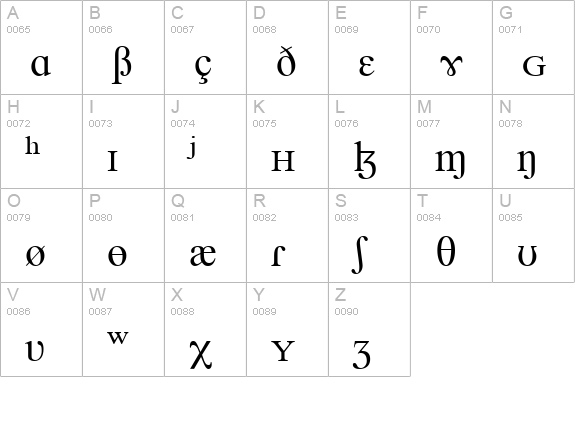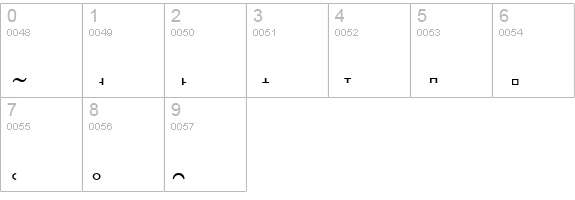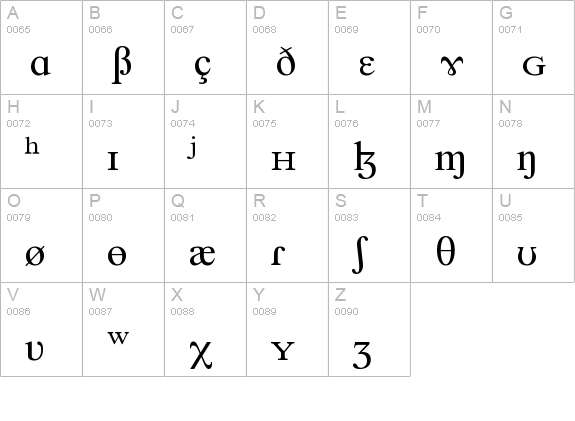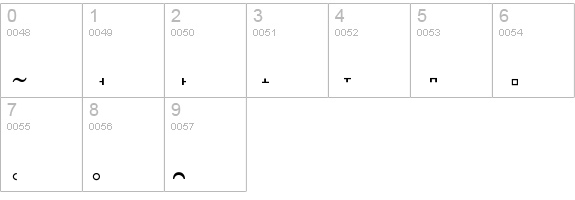
SILDoulosIPA Font Details
SILDoulosIPA is a versatile and visually appealing font that combines the elegance of a traditional serif with the modern twist of a sans-serif. This unique typeface is perfect for various applications, including text-heavy documents, signage, and even digital interfaces. What sets SILDoulosIPA apart is its exceptional attention to detail and its ability to seamlessly blend both Latin and Cyrillic scripts. This font effortlessly combines the beauty of two distinct writing systems, making it an ideal choice for international projects or multilingual designs. Not only is SILDoulosIPA aesthetically pleasing, but it also offers excellent readability, making it an excellent choice for both print and digital media. Its well-balanced letterforms ensure that every word and sentence is clear and easy to comprehend. One of the best aspects of SILDoulosIPA is that it is freely available to download at FontsMarket.com. This means that you can enjoy the beauty and functionality of this font without any cost or hassle. Whether you are a professional designer or a typography enthusiast, SILDoulosIPA is a must-have addition to your font library. So, why wait? Download SILDoulosIPA today and enhance your projects with its elegance, versatility, and exceptional readability. Discover the beauty of this font and let your creativity flourish with its endless possibilities.